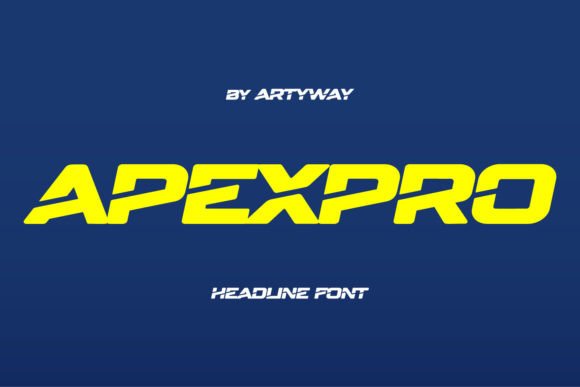
Unleash the Power of Motion and Speed with ApexPro Font
In the world of typography, fonts play a crucial role in conveying the tone and personality of a brand or design. For those who crave action, speed, and innovation, the ApexPro font is the perfect choice. This dynamic, sporty font is meticulously crafted to embody the essence of the automotive world, fitness, and cutting-edge technology.
Design and Features of ApexPro Font
The ApexPro font boasts a rounded and soft appearance with bold, italic, and slashed elements, giving it a sporty and energetic vibe. The letters are carefully crafted, providing a clean and sharp visual for maximum impact. Inspired by the sleek lines of high-speed vehicles, the font carries a rounded, beveled, and cutout aesthetic, adding a touch of modernity and innovation.
The use of military and stencil elements infuses a sense of power and dynamism into the font, making it perfect for designs that require a bold and edgy look. The ApexPro font is not just a font; it’s a statement. It’s designed to make a lasting impression and leave a mark on the viewer.
Target Audience for ApexPro Font
The ApexPro font is tailored for individuals who appreciate the fusion of technology, speed, and style. The target audience includes:
- Automotive enthusiasts: Car manufacturers, racing teams, and automotive bloggers can use the ApexPro font to convey a sense of speed and performance.
- Gym-goers and fitness enthusiasts: Fitness centers, personal trainers, and sports equipment manufacturers can use the font to convey a sense of energy and motivation.
- Tech aficionados: Tech startups, gadget manufacturers, and tech bloggers can use the ApexPro font to convey a sense of innovation and cutting-edge technology.
- Game developers: The font’s dynamic and sporty vibe makes it perfect for gaming interfaces and promotional materials.
- Graphic designers: Designers can use the ApexPro font to add a touch of modernity and innovation to their designs.
Use Cases for ApexPro Font
The ApexPro font is versatile and can be used in various contexts, including:
- Sports events: The font’s dynamic and sporty vibe makes it perfect for sports events, such as logos, jerseys, and promotional materials.
- Gaming interfaces: The ApexPro font can be used to create engaging and interactive gaming interfaces.
- Futuristic designs: The font’s sleek and modern aesthetic makes it perfect for futuristic designs, such as sci-fi movies and technology product launches.
- Automotive branding: The ApexPro font can be used to create bold and edgy branding for car manufacturers, racing teams, and automotive accessories.
- Fitness and wellness: The font can be used to create motivational and energetic branding for fitness centers, personal trainers, and sports equipment manufacturers.
Benefits of Using ApexPro Font
The ApexPro font offers several benefits, including:
- Unique and memorable: The font’s dynamic and sporty vibe makes it unique and memorable, helping to leave a lasting impression on the viewer.
- Versatile: The ApexPro font can be used in various contexts, from sports events to gaming interfaces and futuristic designs.
- High-quality design: The font is meticulously crafted, providing a clean and sharp visual for maximum impact.
- Easy to read: The ApexPro font is designed to be easy to read, even at small sizes.
In conclusion, the ApexPro font is a dynamic and sporty font that embodies the essence of the automotive world, fitness, and cutting-edge technology. Its unique and memorable design makes it perfect for designs that require a bold and edgy look. With its versatility and high-quality design, the ApexPro font is an excellent choice for individuals who appreciate the fusion of technology, speed, and style.